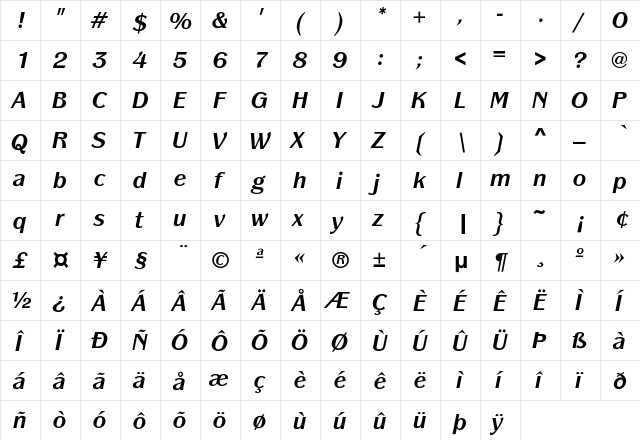
Panache-BoldIta Regular Font Preview
Panache-BoldIta Regular
Panache-BoldIta Regular Font Details
Design Context for Panache-BoldIta Typeface
Panache-BoldIta is a composed and adaptable typeface that performs quietly and consistently across a wide range of design contexts. The heavy weight commands attention and anchors typographic hierarchies.